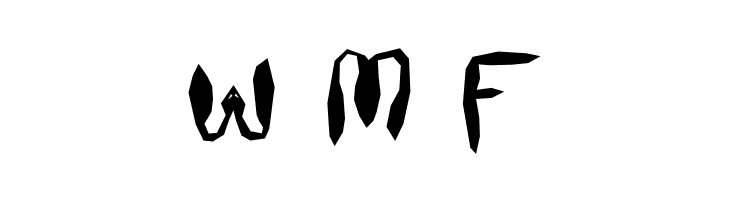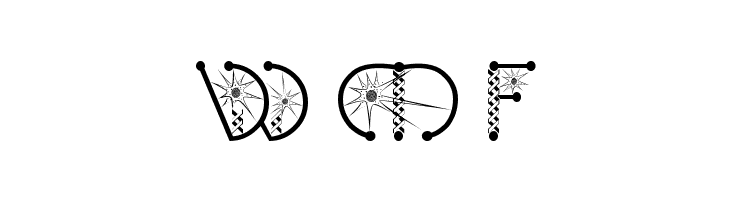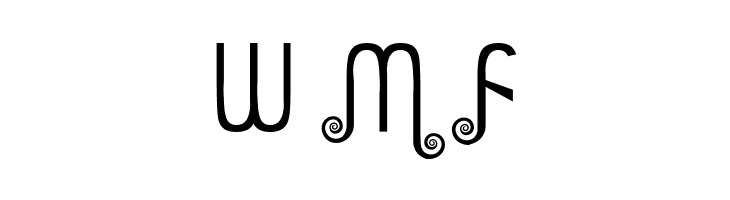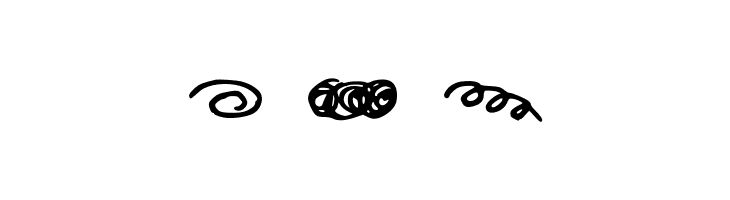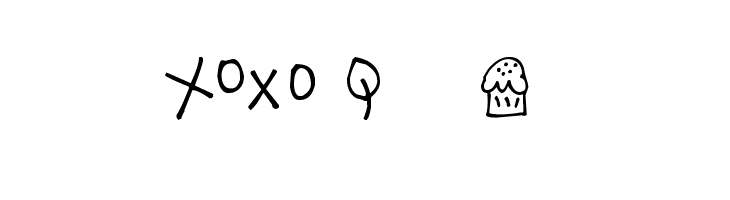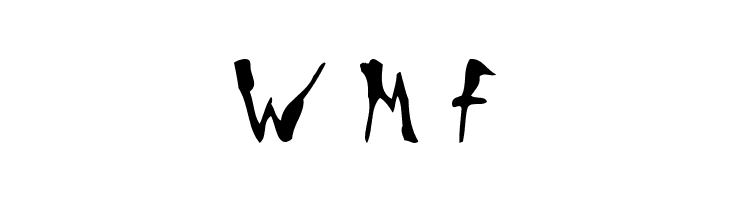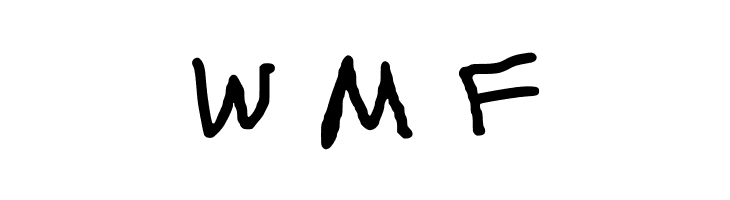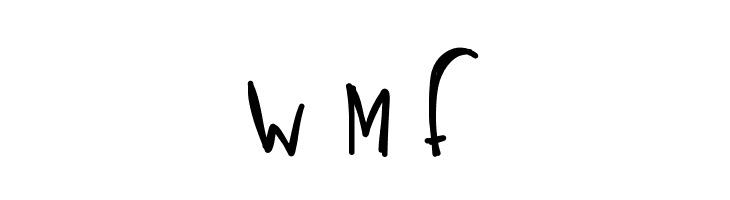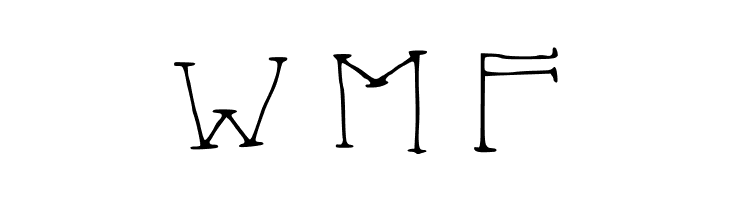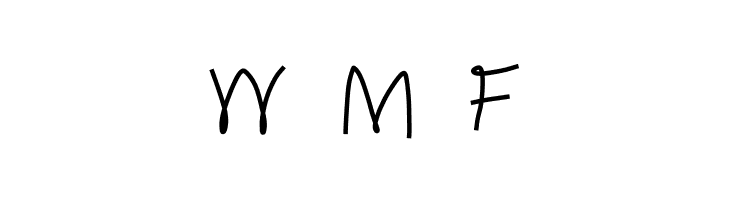
A playful, bold font with rounded, bouncy characters and whimsical elements.
A whimsical, decorative font with intricate patterns and playful elements.
A whimsical and playful font with quirky details and bold strokes.
A whimsical collection of hand-drawn doodles with playful and charming designs.
A whimsical, curly font with playful swirls and decorative elements.
A whimsical and playful font with bold, swirling characters.
A whimsical and playful font with curly, looping strokes and decorative flair.
A decorative font inspired by traditional Maori motifs with intricate swirling patterns.
A whimsical, hand-drawn font with playful loops and swirls.
A playful, hand-drawn font with curly, looping strokes and decorative swirls.
A playful, jagged font with whimsical and decorative letterforms.
A whimsical, decorative font with playful swirls and elegant flourishes.
A bold, decorative font with whimsical and artistic strokes.
A playful, hand-drawn font with quirky, uneven characters and decorative elements.
Bold, high-contrast geometric symbols with an optical art style.
A whimsical, hand-drawn style font with playful, elongated letterforms and artistic flair.
A whimsical and decorative font with intricate swirls and curls.